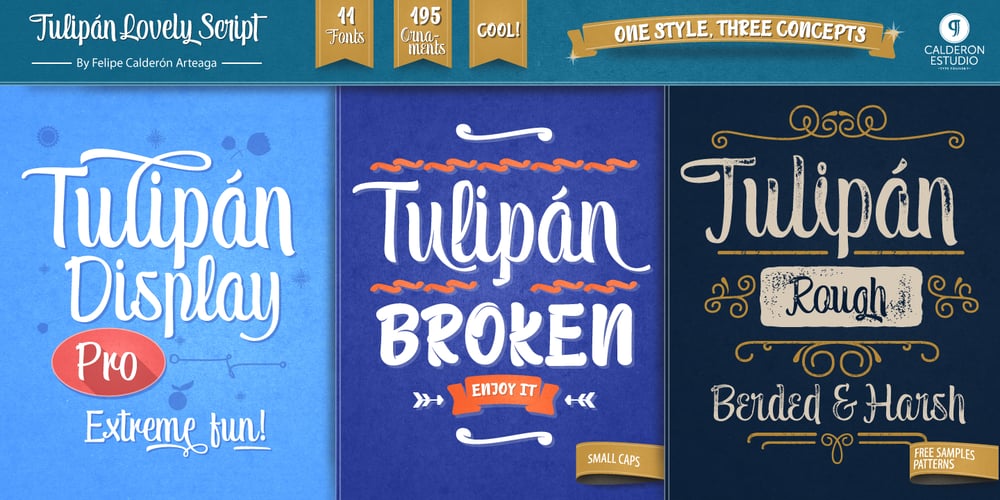
Tulipán
Tulipán font
Tulipán Font Family was designed by Felipe Calderón and published by Estudio Calderon. Tulipán contains 12 styles and family package options. After Letrista Script, Calderón Estudio returns with a new contemporary and adaptable typeface. Tulipán Lovely Script is a font with three variations resulting in a subtle design that can be smooth as the fresh tulips that inspired it, markedly delineated as a tulip in full bloom, or rough as crocodile skin. Tulipán evokes the soul of vintage brush lettering. See our samples here. Features include: Tulipan Display: Stylistics alternatives, contextual alternates, swash, discretionary ligatures, standard ligatures, oldstyle figures, language support, titling alternates and 59 ornaments. Tulipan Broken: Broken effect, Stylistics alternatives, contextual alternates, swash, discretionary ligatures, standard ligatures, oldstyle figures, language support, titling alternates, small caps and 59 ornaments. Tulipan Rough: Rough effect, Stylistics alternatives, contextual alternates, discretionary ligatures, language support, cath words, 77 ornaments and free samples patterns! You will love it!